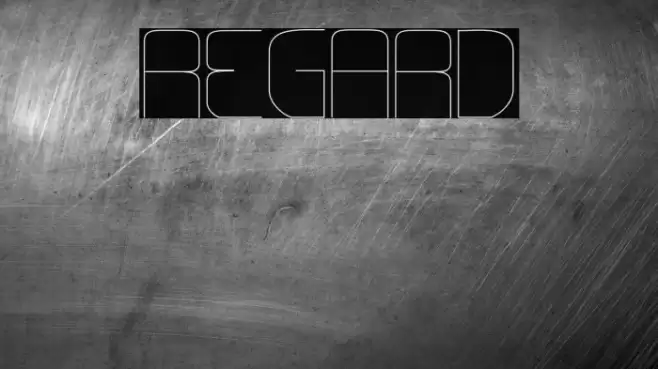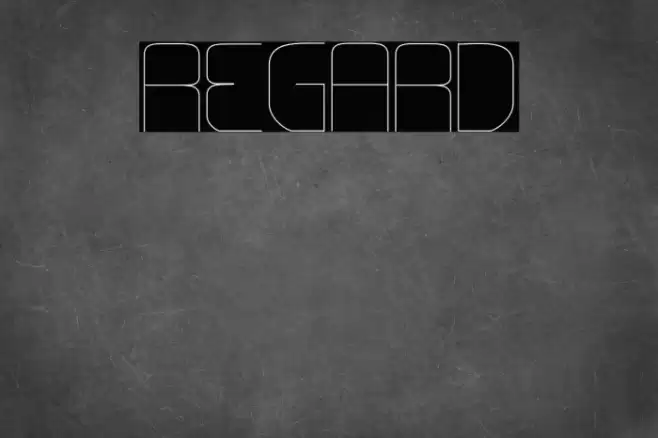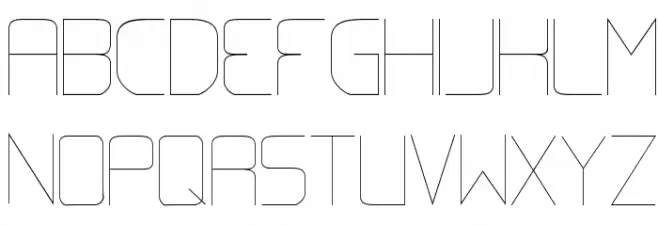
REGARD Font
REGARD Description
This font features a highly geometric and minimalist design, characterized by thin, linear strokes and angular forms. Each character is constructed with precision, using straight lines and sharp angles, giving it a futuristic and technical appearance. The uppercase and lowercase letters maintain a consistent style, with the lowercase mirroring the uppercase in structure but with slight variations in height and proportion. The numerals and special characters follow the same design principles, ensuring uniformity across the typeface. This font's unique style makes it stand out, offering a modern and avant-garde aesthetic.
A geometric, minimalist font with thin, angular strokes and a futuristic look from Uncategorized fonts.
- Proposed Projects: Ideal for technology branding, modern art posters, architectural designs, and digital interfaces.
- Overall Style: Futuristic, Technical
- Use Case: Logos, Headlines, Digital interfaces